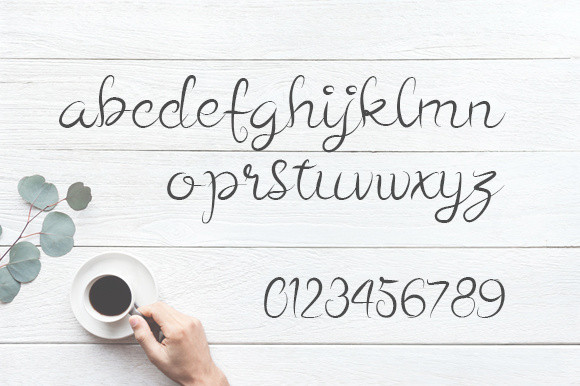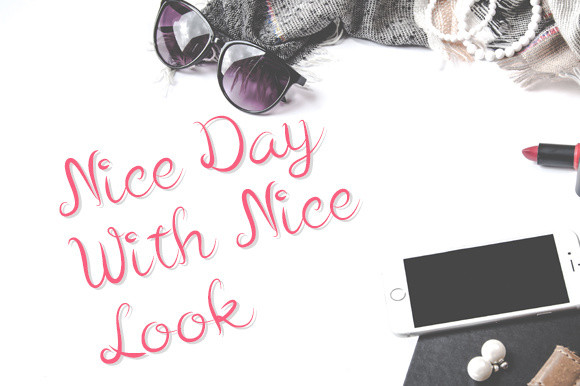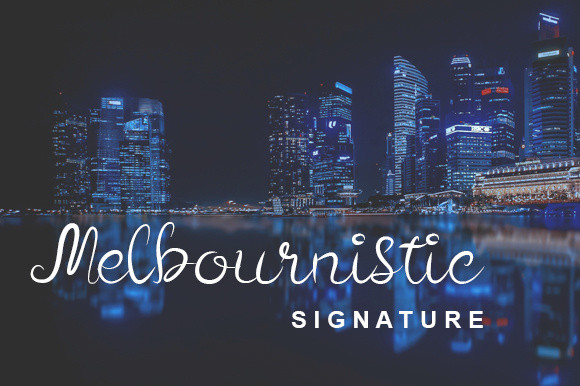
Melbournistic Font
Melbournistic is a perfectly playful new font pair with a handy set of complimentary Illustrations.
Perfect for DIY projects, greeting cards, labels, quotes, posters, wall art, branding, packaging, websites, photo & photography overlays, signs, window art, scrapbooking, tags and so much more!